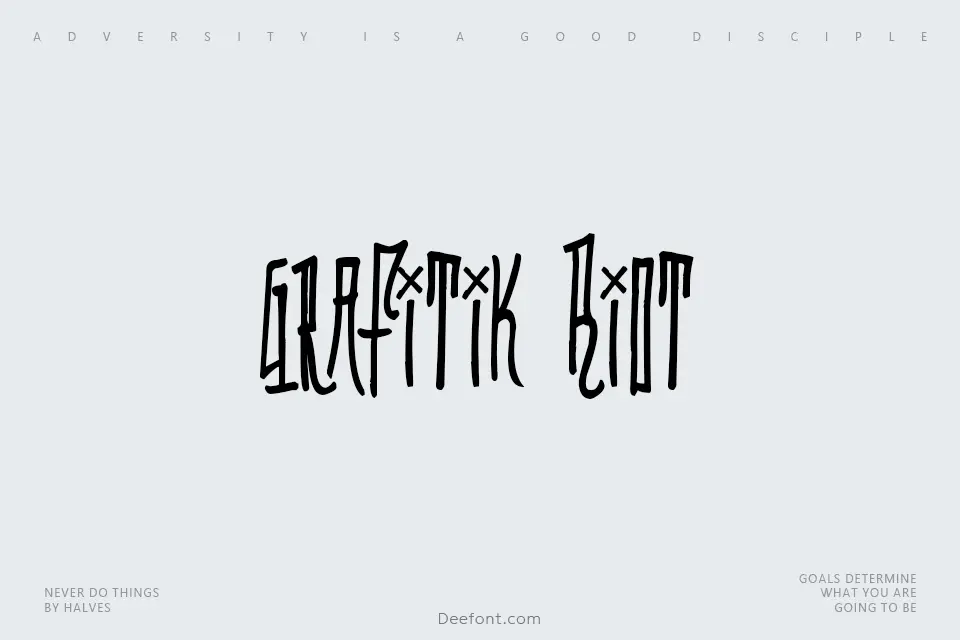
Grafitik Riot Font
Grafitik Riot is a rebellious, hand-drawn graffiti font bursting with urban energy. With sharp angles and jagged edges, it combines raw, unfinished aesthetics with captivating visual impact. Perfect for expressing street art inspiration, edgy designs, and bold creative messages, this script font captures the essence of underground rebellion and graffiti culture with its playful yet powerful character.